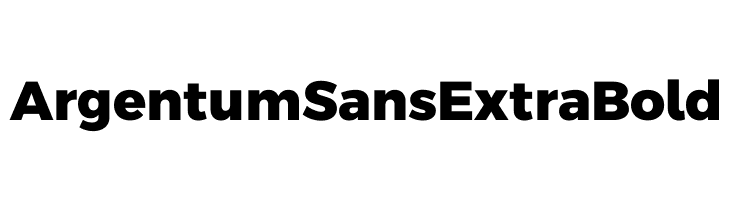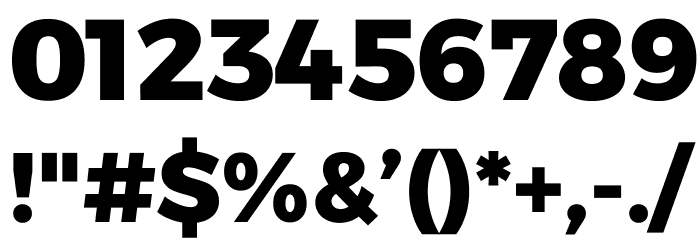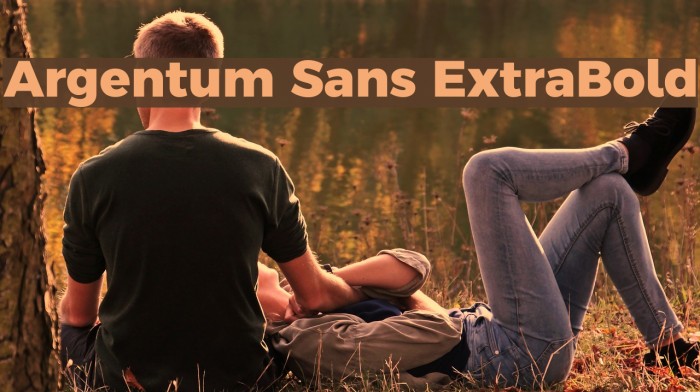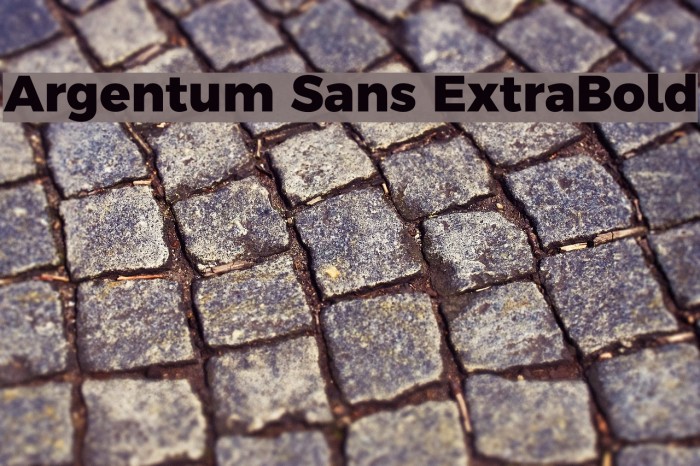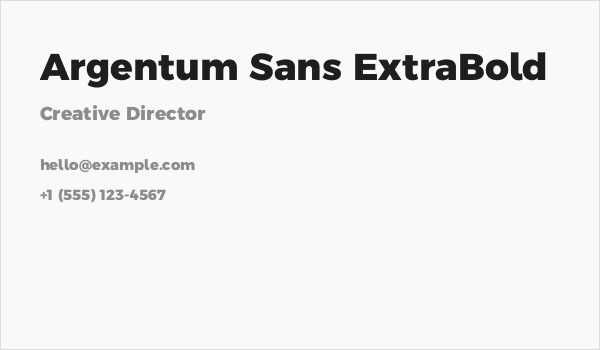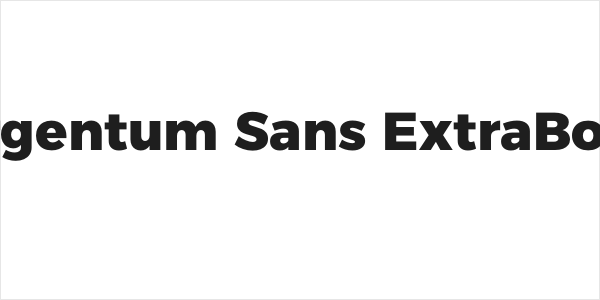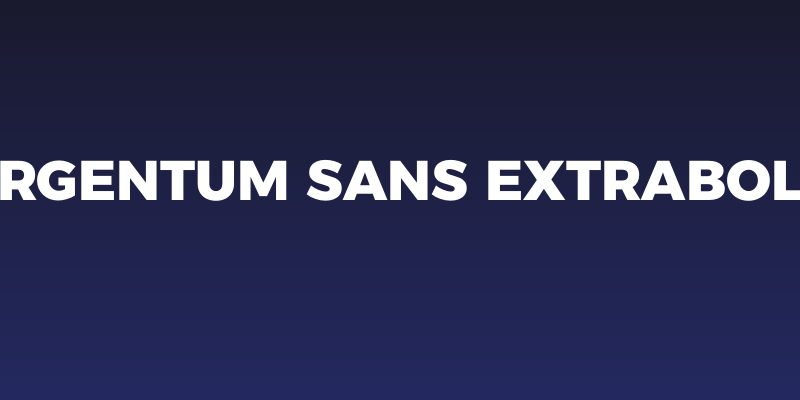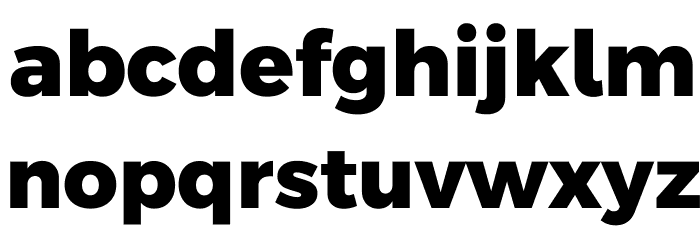
Argentum Sans ExtraBold Font
Argentum Sans ExtraBold Description
This font features a bold and robust design, characterized by its thick strokes and strong presence. The uppercase and lowercase letters maintain a consistent weight, providing a uniform appearance across all characters. The numerals are equally bold, ensuring readability and impact. Special characters are designed with the same thickness, making them stand out effectively. The overall style is modern and clean, suitable for a variety of applications where a strong visual impact is desired.